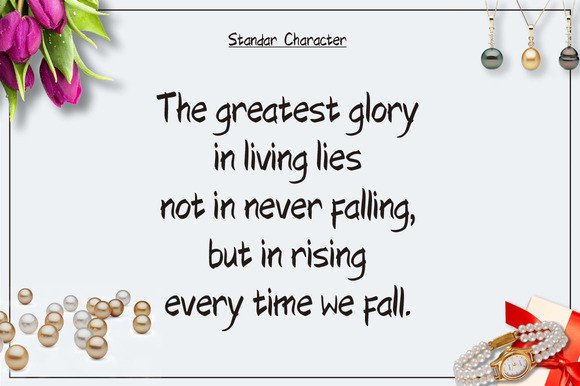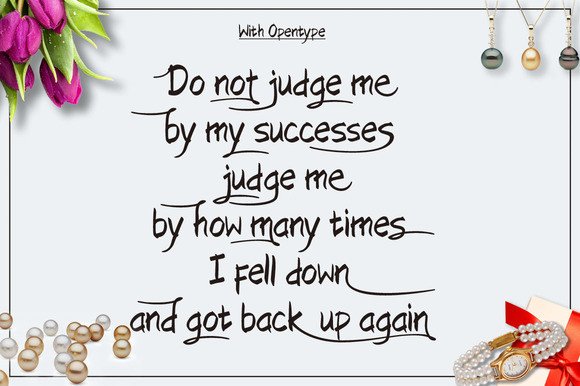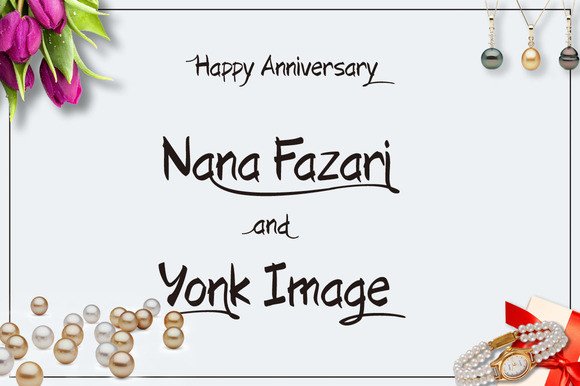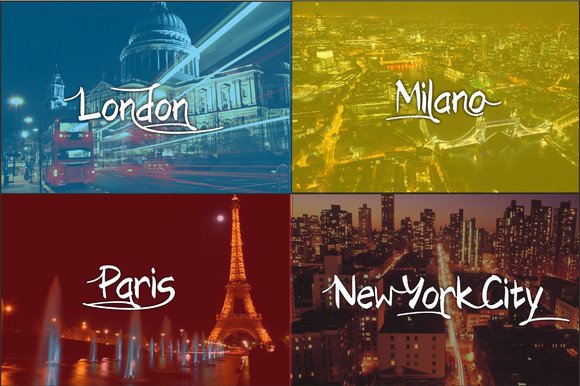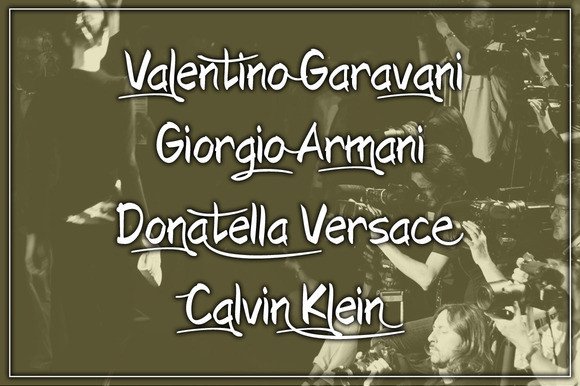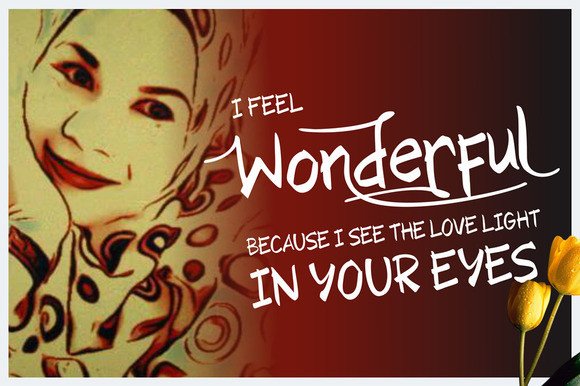
Fashionista Font: Elevate Your Designs with Elegance and Sophistication
Are you a designer or crafter looking for a font that exudes elegance and sophistication? Look no further than the Fashionista Font. This beautiful natural script font is perfect for adding a touch of glamour to your designs, and its unique characteristics make it stand out from the crowd.
A Unique Blend of Style and Sophistication
Fashionista Font is a stunning script font that features hard straight lines with rounded endings, giving it a distinctive look and feel. The lines are pretty thick, which gives the font a sense of boldness and confidence. The overall effect is a font that looks like it was written with a marker, adding a touch of playfulness and whimsy to your designs.
One of the most striking features of Fashionista Font is its subtle Chinese influence. The straight lines and rounded endings give the font a hint of an Asian flair, making it perfect for designers who want to add a touch of exoticism to their work. Whether you’re designing a logo, a brochure, or a website, Fashionista Font is sure to make a statement.
Fashionista Font is a versatile font that is perfect for a wide range of design projects. Whether you’re a professional designer or a crafter working on a DIY project, this font is sure to inspire your creativity. Here are just a few ways you can use Fashionista Font:
- Logos and branding: Fashionista Font is perfect for creating elegant and sophisticated logos that will help your brand stand out.
- Stationery and invitations: Add a touch of glamour to your stationery and invitations with Fashionista Font.
- Web design: Use Fashionista Font to create beautiful and elegant website headers, titles, and text.
- Crafting: Fashionista Font is perfect for crafters who want to add a personal touch to their projects, such as handmade cards, scrapbooking, and DIY jewelry.
Why Choose Fashionista Font?
So why should you choose Fashionista Font for your design projects? Here are just a few reasons:
- Unique and distinctive: Fashionista Font has a unique and distinctive look that will set your designs apart from the crowd.
- Elegant and sophisticated: Fashionista Font exudes elegance and sophistication, making it perfect for high-end designs.
- Versatile: Fashionista Font can be used for a wide range of design projects, from logos and branding to web design and crafting.
- Easy to read: Despite its bold and playful look, Fashionista Font is easy to read and understand.
Tips for Using Fashionista Font
Here are a few tips for getting the most out of Fashionista Font:
- Use it sparingly: Fashionista Font is a bold and attention-grabbing font, so use it sparingly to avoid overwhelming your design.
- Pair it with other fonts: Fashionista Font looks great when paired with other fonts, such as sans-serif fonts or serif fonts.
- Experiment with colors: Fashionista Font looks great in a range of colors, from bold and bright to soft and pastel.
Fashionista Font is a beautiful and elegant script font that is perfect for designers and crafters who want to add a touch of sophistication to their designs. With its unique blend of style and playfulness, Fashionista Font is sure to inspire your creativity and help your designs stand out from the crowd. So why not give it a try and see the difference it can make?